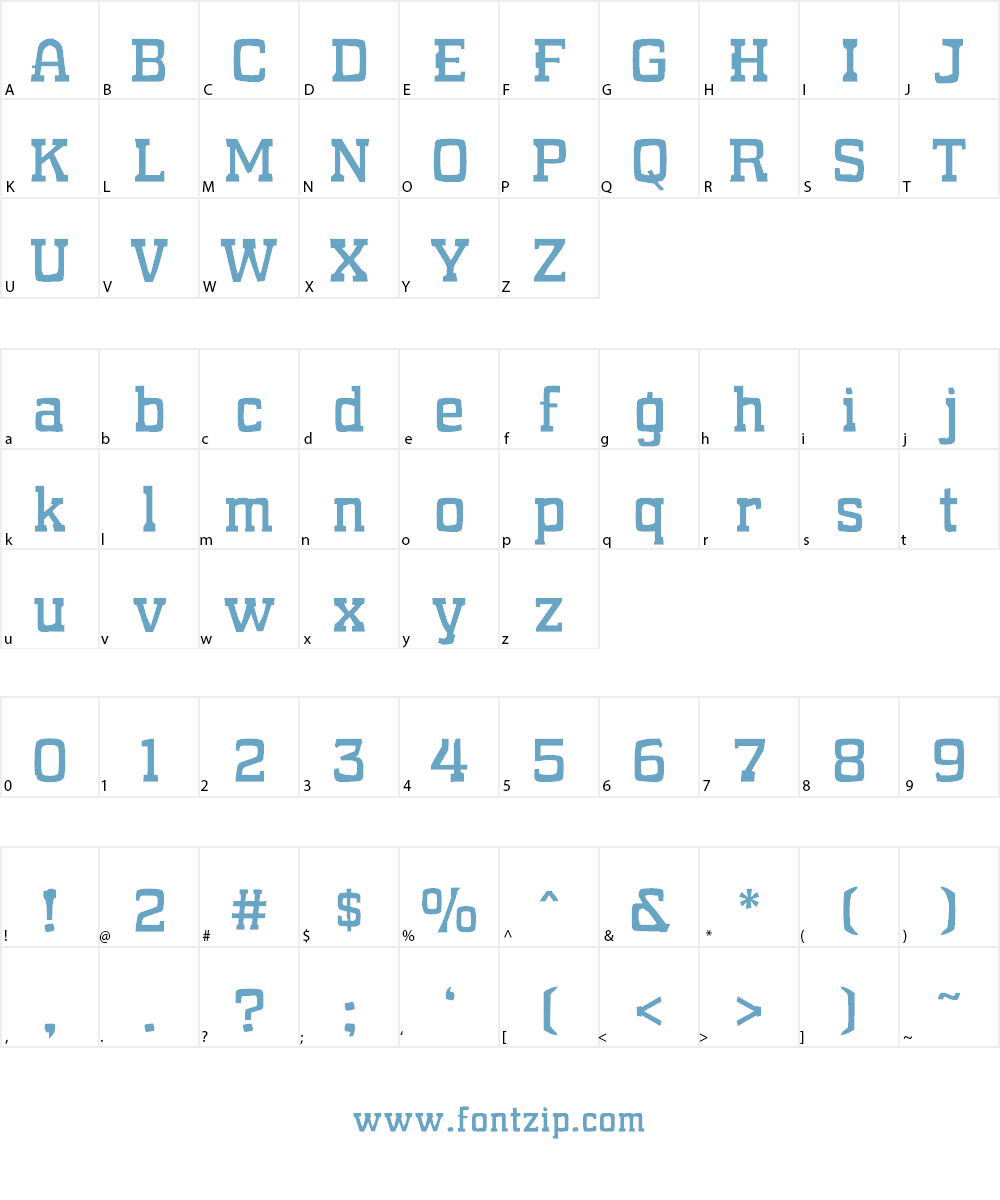
In COMMERCIAL form (see poster above), this amazing little font is now a family of 8 faces, with OpenType Features, layering effects, dropshadows and an extended version that just keeps adding to the fun. The price is only $5 ($2.50 when it's own sale), so go an grab yourself a copy! Now back to our regular description:
You'll want to call it many things. You'll swear it's a sport font in distress. You'll imagine it emblazoned on the flanks of battered starships. You'll wonder what niche, what genre it was ever meant to occupy. Is it a display font? Text? Is that a noise in your ear? A sounding pound against your thoughts? Ask what you think of that sound and it's potential to melt you where you stand, and you'll find this very font staring back on you.